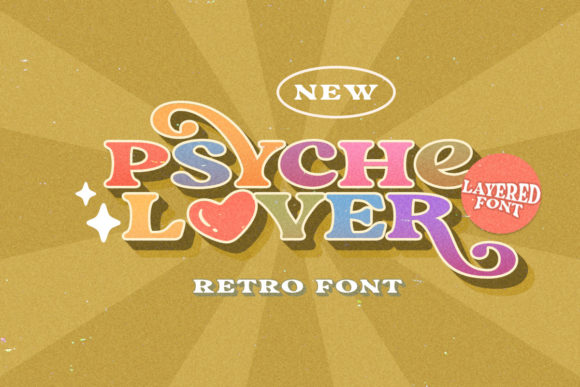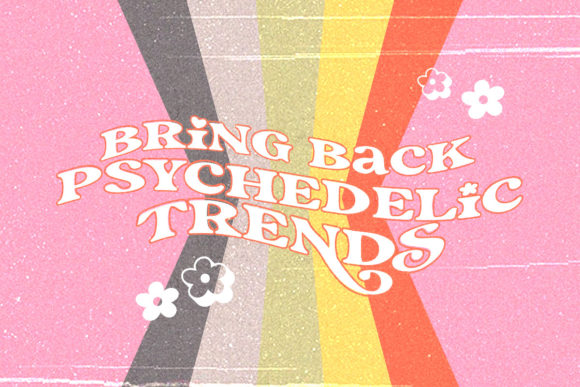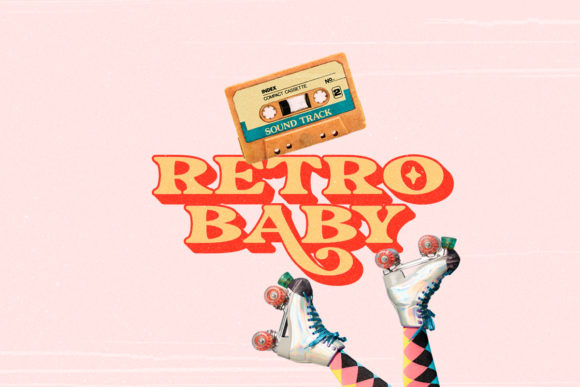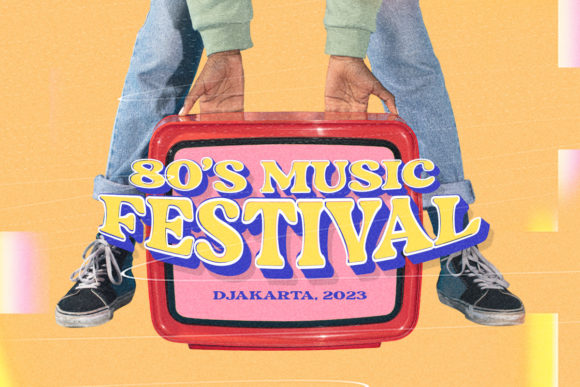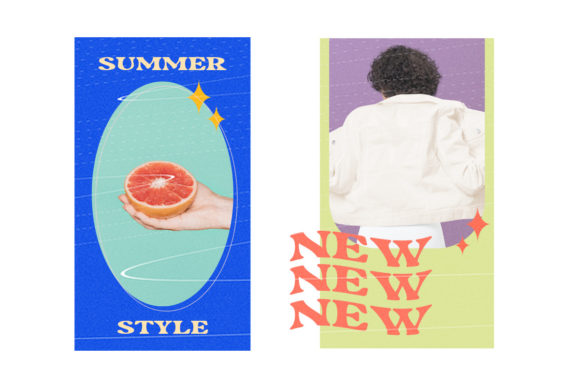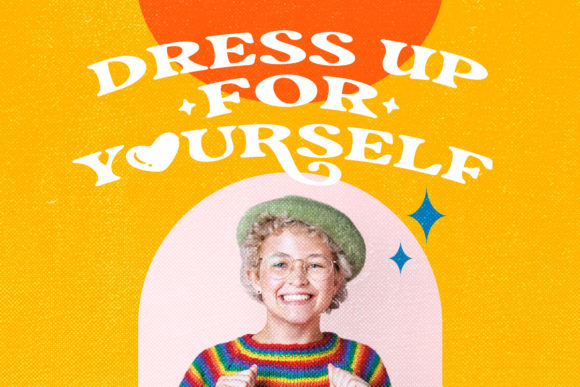
Introduction to Psyche Lover Font
Psyche Lover is a cool, retro styled display font.
Whether youโre using it for crafting, digital designing, presentations or greeting cards making, itโs perfect .
Key Features of Psyche Lover Font
Why Choose Psyche Lover Font?
Psyche Lover Font offers exceptional quality and versatility, making it a valuable addition to your design toolkit. Whether you’re creating for personal projects or commercial use, Psyche Lover Font delivers professional results.